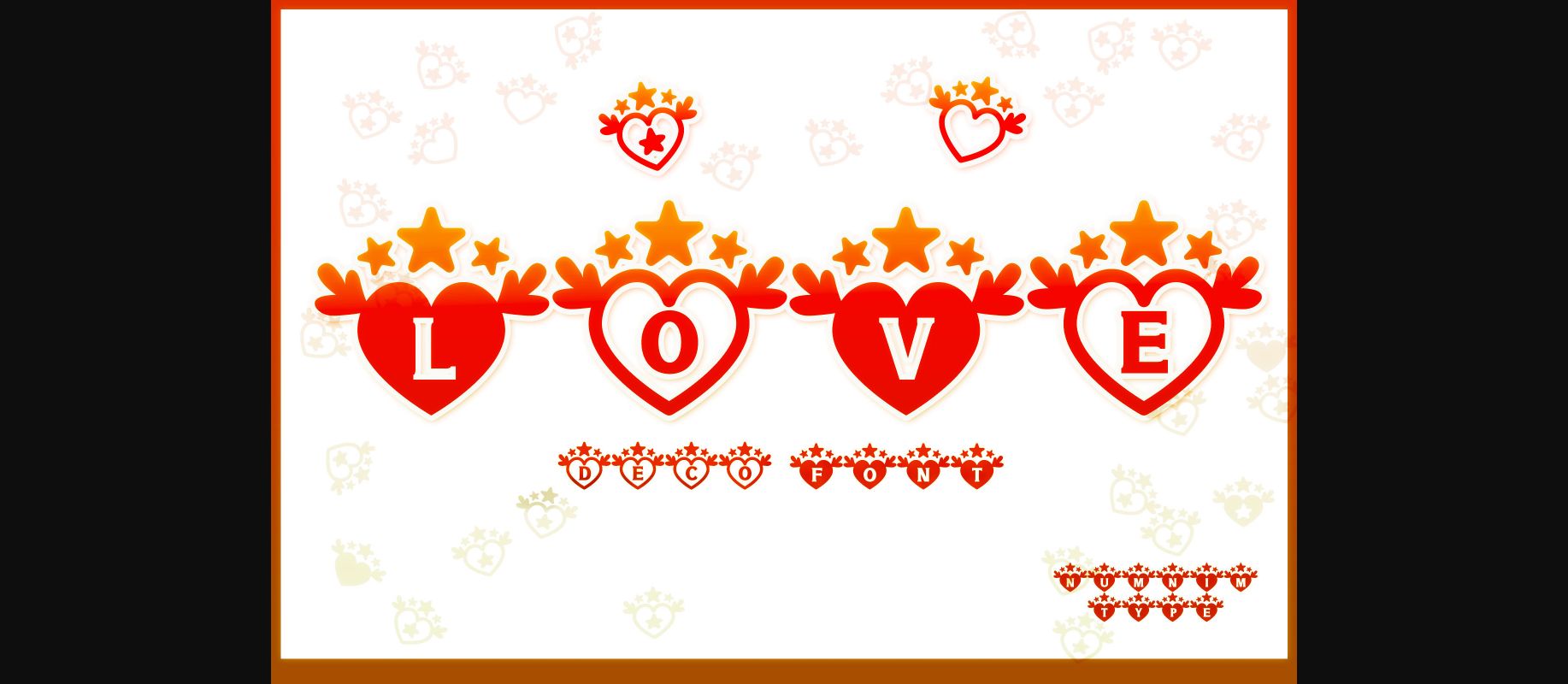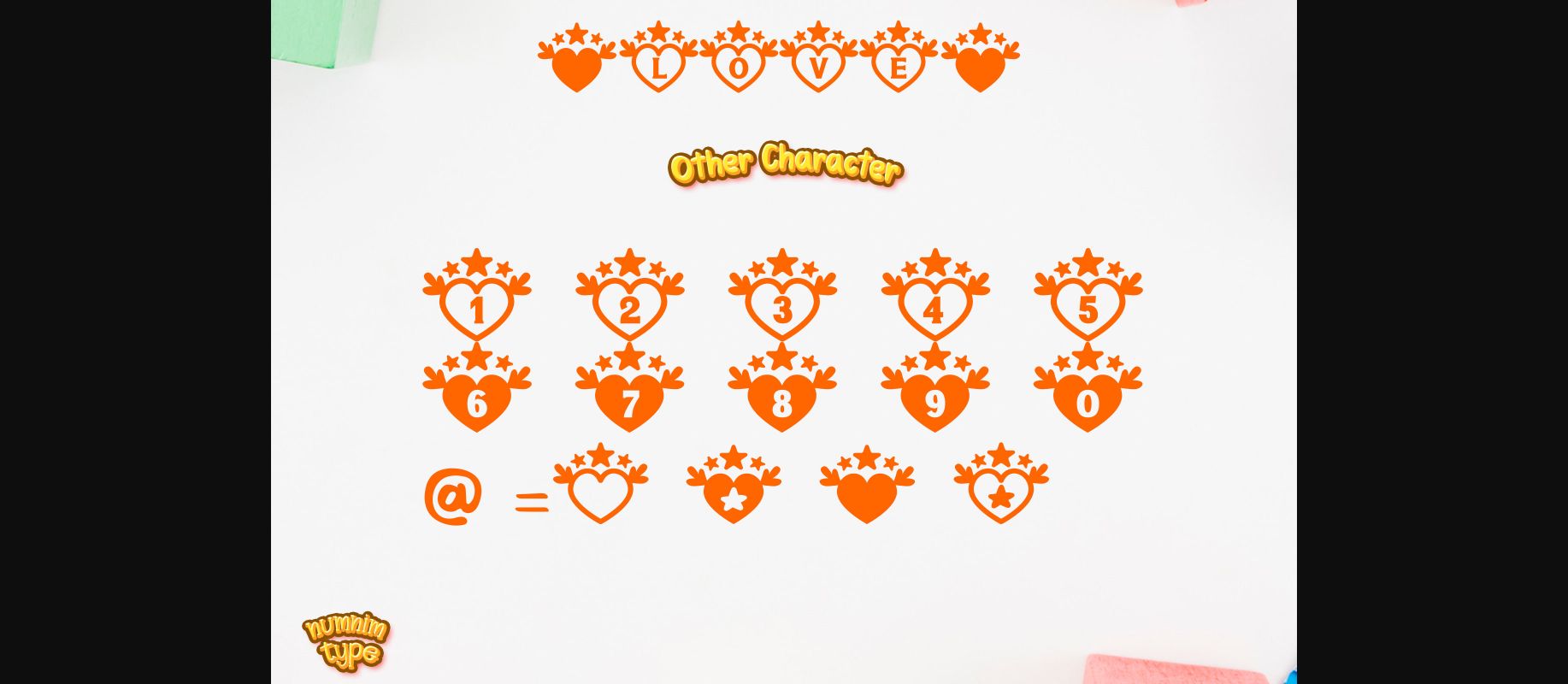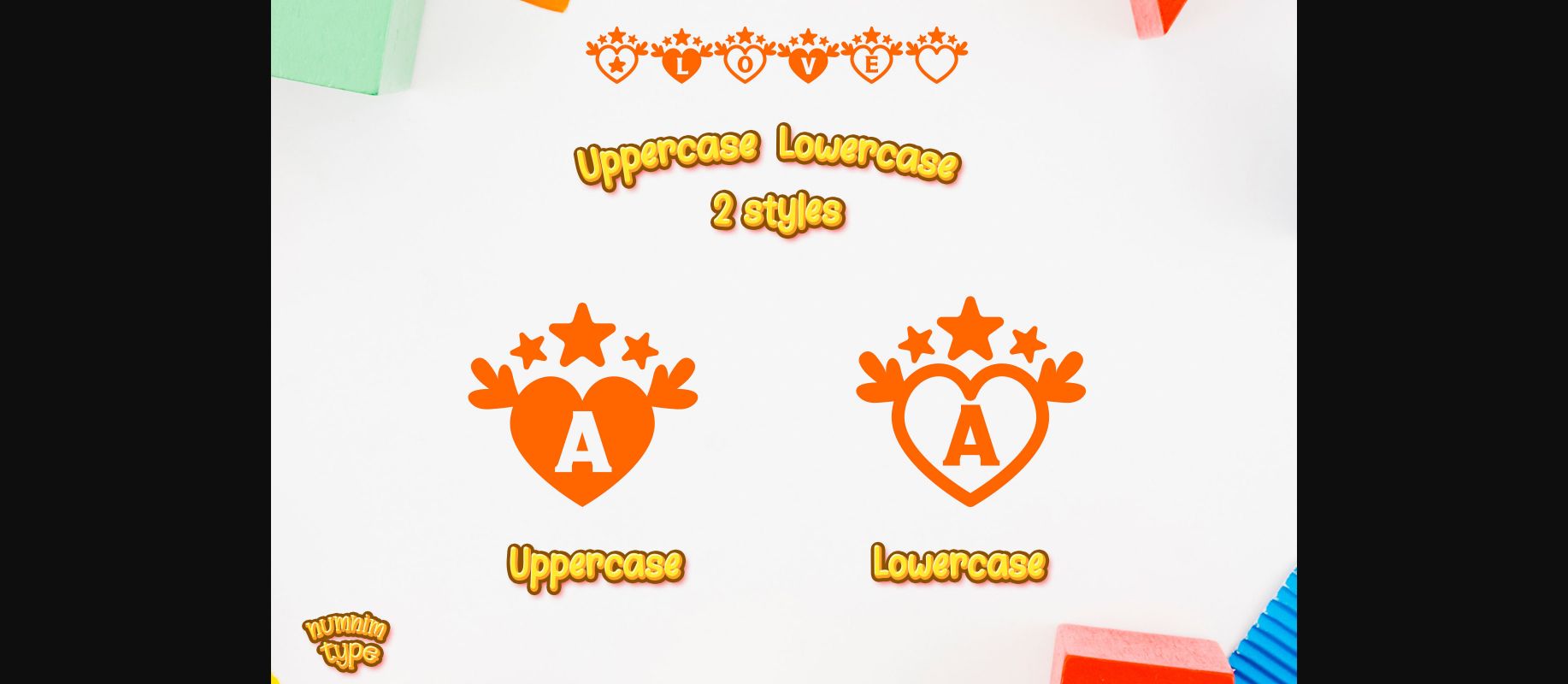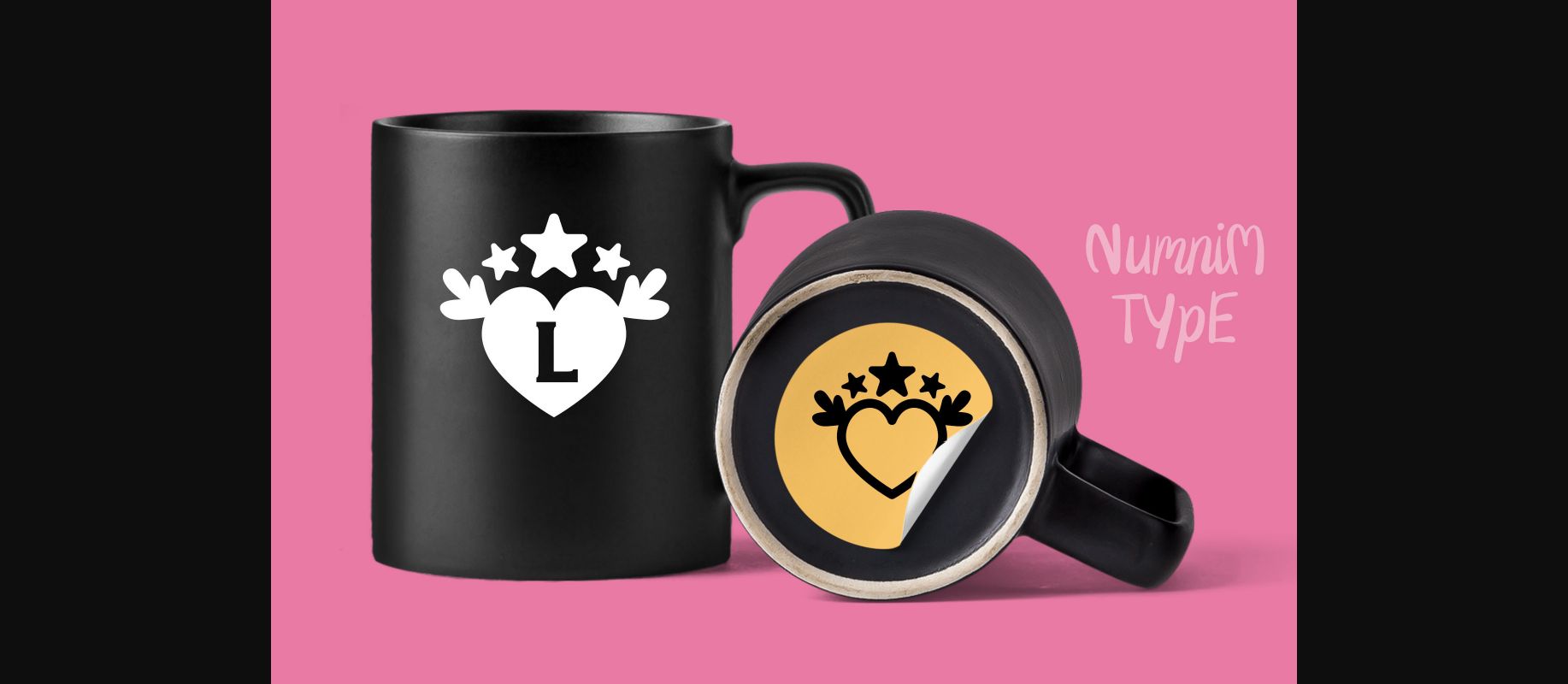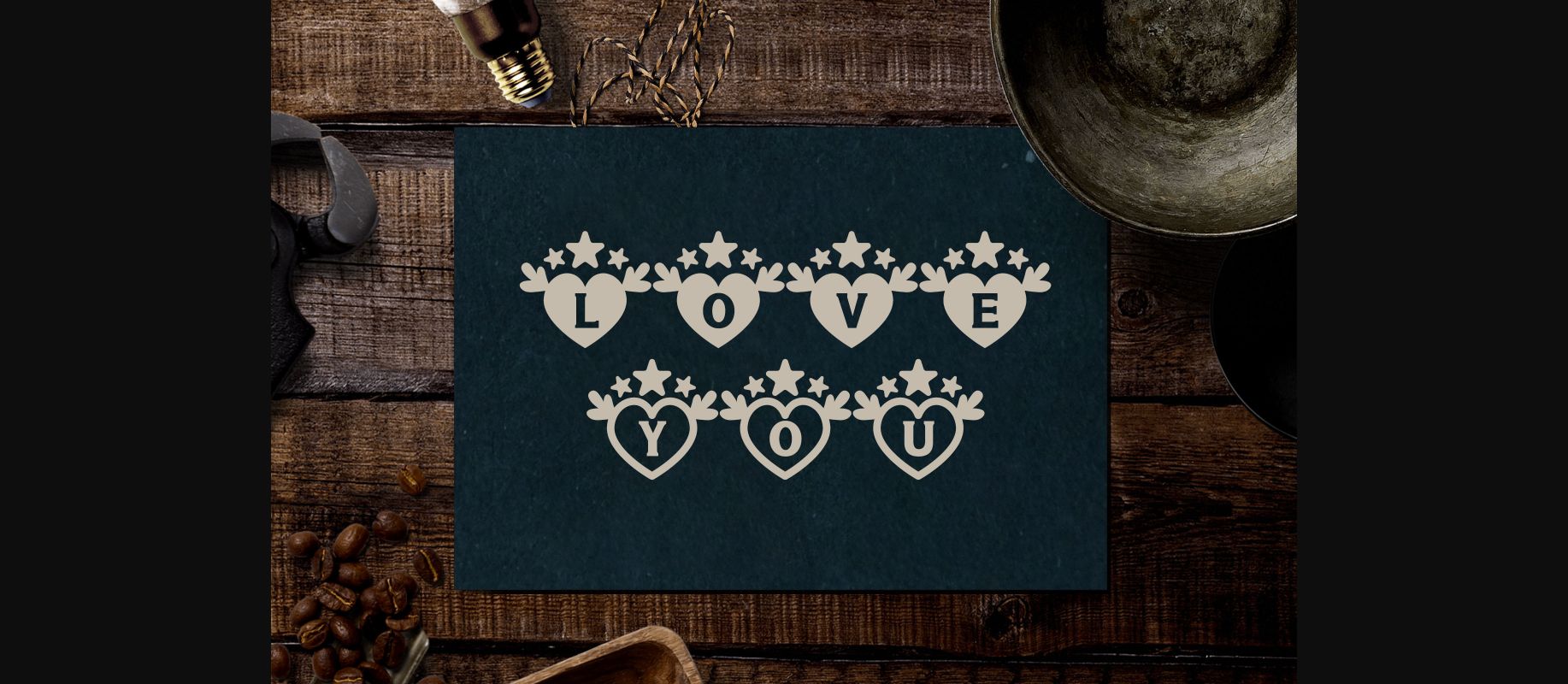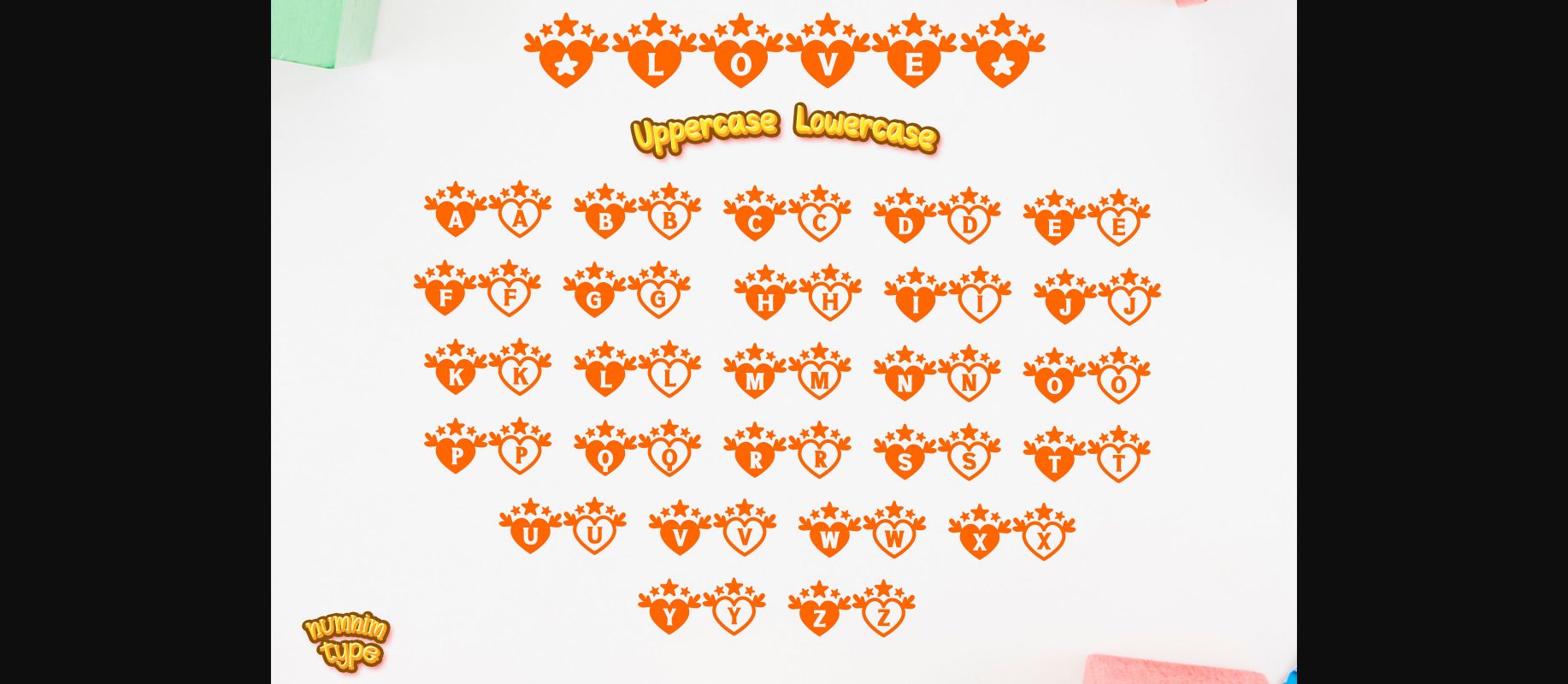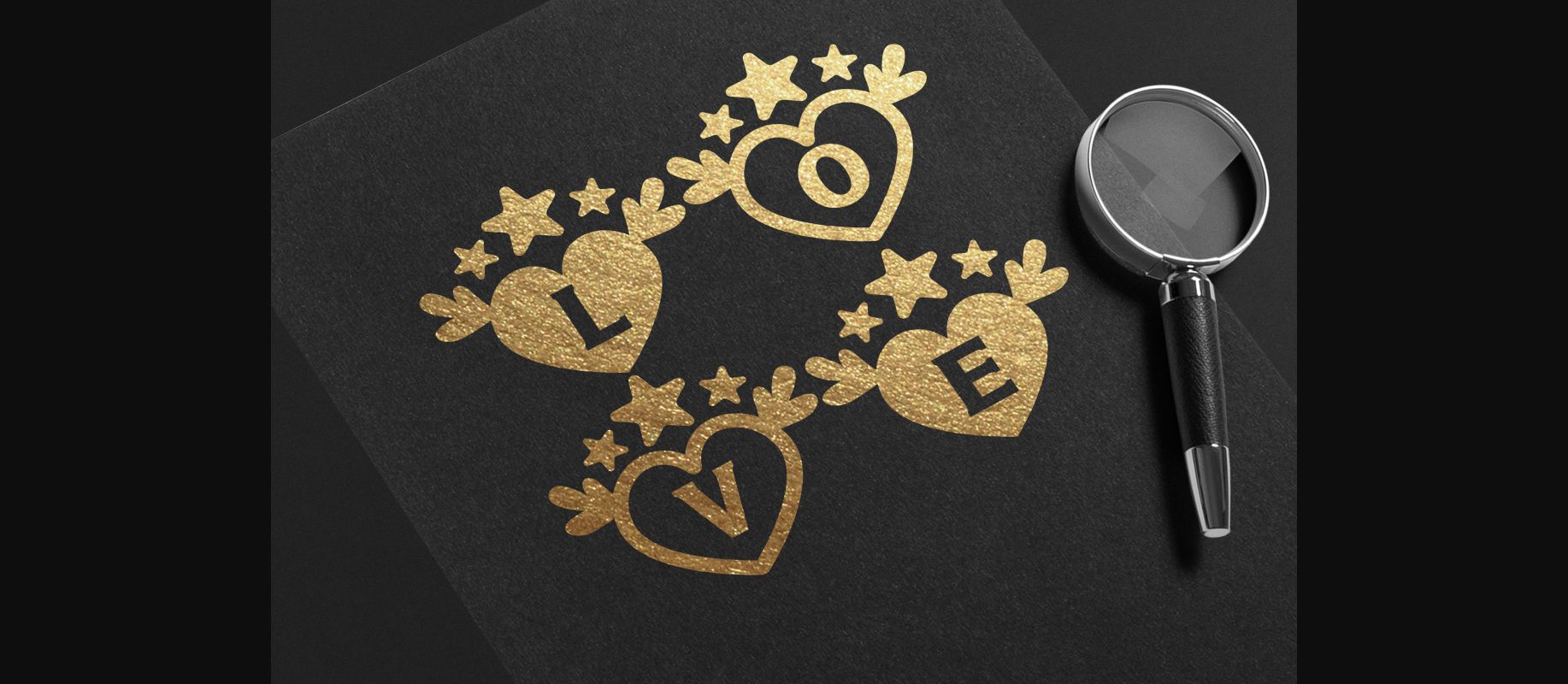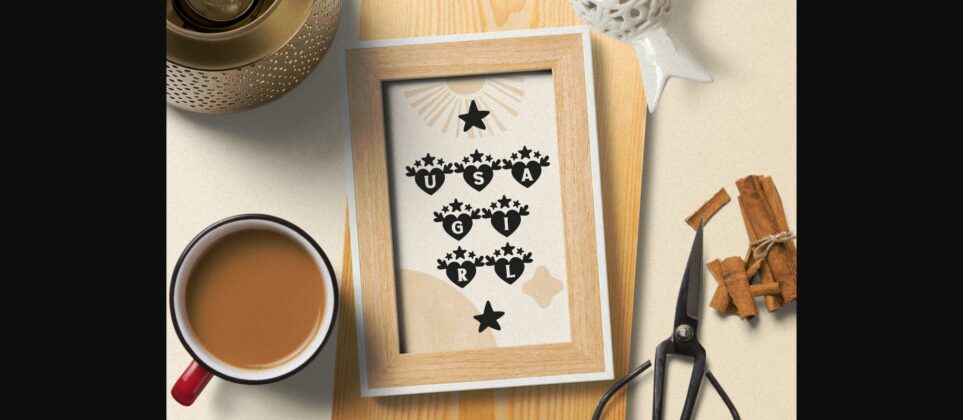
HomeDecorative FontsLove Font Decorative Fonts Love Font FacebookTwitterPinterestWhatsApp 1 of 10 ... Love Font Poster 2... Love Font Poster 3... Love Font Poster 4... Love Font Poster 5... Love Font Poster 6... Love Font Poster 7... Love Font Poster 8... Love Font Poster 9... Love Font Poster 10... About Love Font Love is a cool and uniquely crafted decorative font. Its fun and playful characters make it the perfect font for stickers, mugs, t-shirts, ornaments, Christmas day event cards, event invitations, and many more! DOWNLOAD NOW 110 0 People also explored Grahm Font Snowflake Script Font Fancylate Font Patchwork Font Black Romance Font Among Us Font Wones Font Onfire Font Angelica Script Font Divinity Rose Monograms Senopathi Font Himalaya Vintage Font TagsLoveLove Font Previous articleSanta\’s Land FontNext articleGingerbread Cookies Font LEAVE A REPLY Cancel reply Comment: Please enter your comment! Name:* Please enter your name here Email:* You have entered an incorrect email address! Please enter your email address here Website: Save my name, email, and website in this browser for the next time I comment. Unlock Endless Creativity with the FREE September Clipart Huge Bundle (Valued at $700!) Personal Use Free Oaklevin Personal Use Free Read more Machine House Personal Use Free Read more Casual Personal Use Free Read more Morning Miow Personal Use Free Read more BLOG Using Fonts in Digital Marketing: Tips to Strengthen Your Brand Identity In the realm of digital marketing, every visual element plays a crucial role in shaping a brand's identity, and fonts are no exception. The... Top 7 Google Fonts Alternatives for Faster and Privacy-Friendly Web Design (2025) Where to Buy American Fonts Online in 2024 Transform Your Website: Elevate Your Typography with 7 Best Web Font Generators